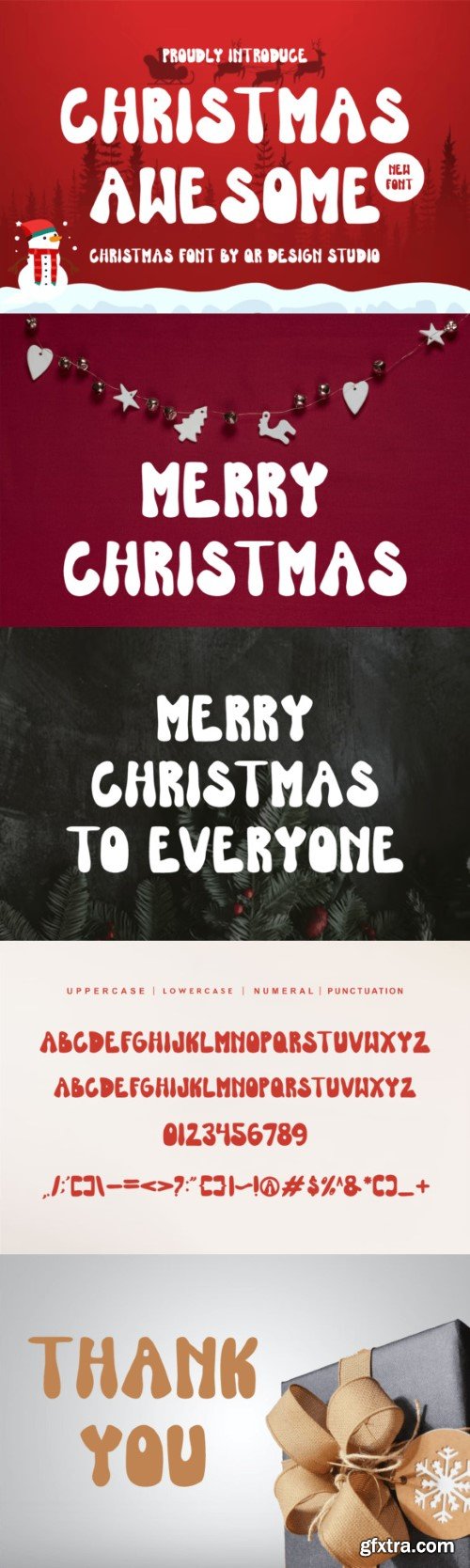
圣诞节 awesome 字体
Christmas Awesome is a bold and authentic display font, suitable for a variety of branding projects like logos, posters, Christmas cards, invitations, decorations and so much more.